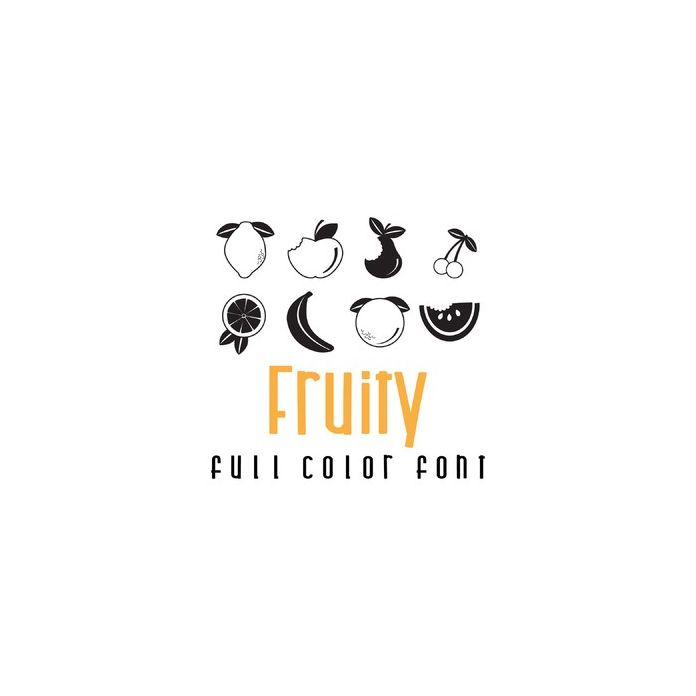
This fun doodlebat font features 26 fruit silhouettes and outlines. Perfect for cards, gifts, decor, crafts, scrap book pages, planner stickers and more!